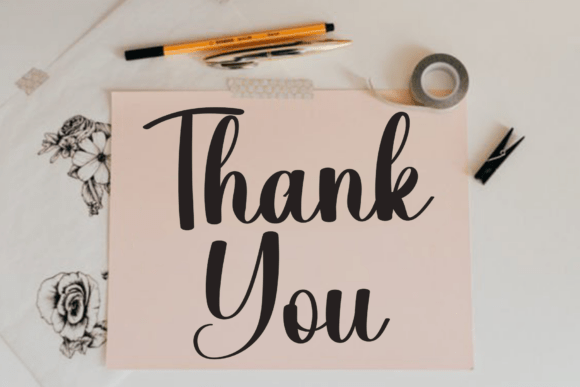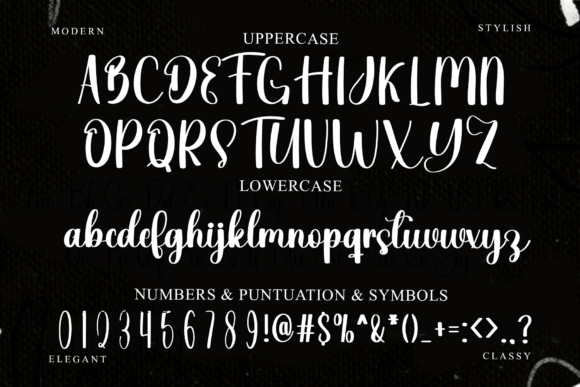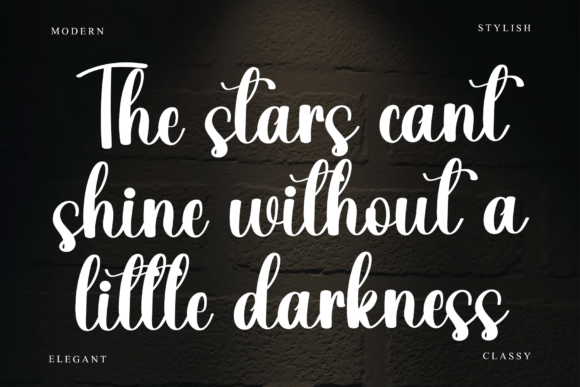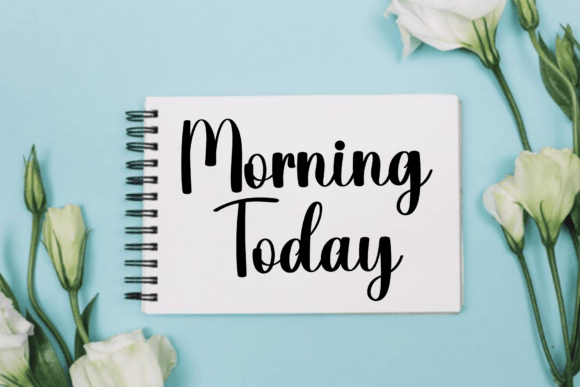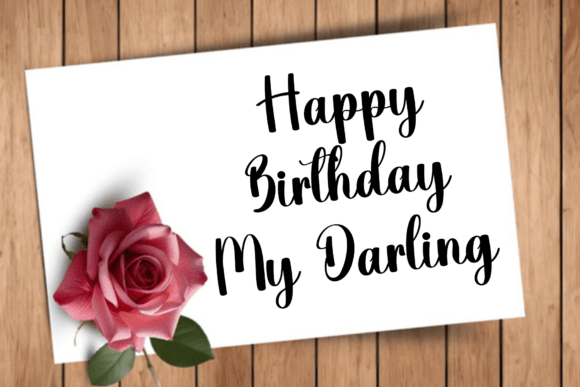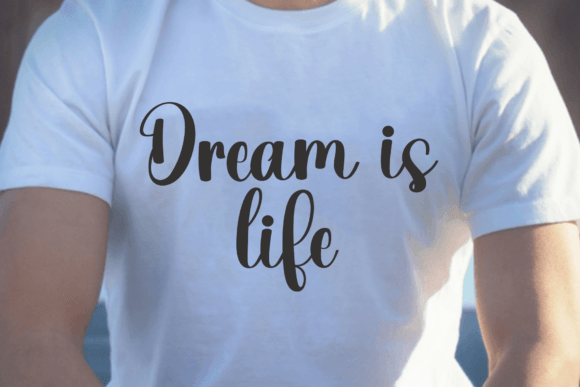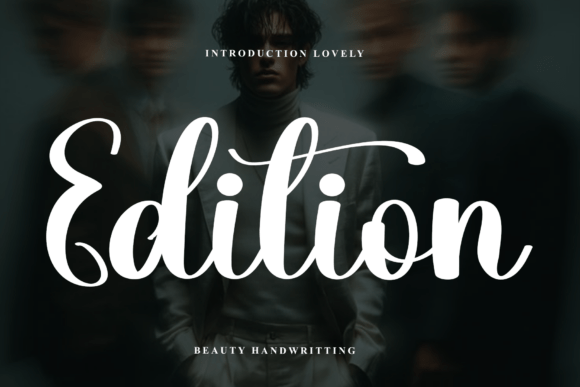
Introducing Edition Font: The Ultimate Holiday Typeface
The holiday season is upon us, and what better way to get into the spirit than with a festive and merry typeface? Look no further than Edition Font, a decorative and whimsical font that’s perfect for adding a touch of enchantment to your designs. Whether you’re creating greeting cards, gift tags, or holiday-themed projects, Edition Font is the perfect choice to bring a cheerful and nostalgic ambiance to your words.
The Magic of Edition Font
Edition Font is a carefully crafted typeface that’s designed to capture the essence of the holiday season. Its decorative elements and whimsical flair make it the perfect choice for designers and crafters looking to add a touch of magic to their projects. With its unique and eye-catching design, Edition Font is sure to make your typography shine.
Edition Font is specifically designed with holiday projects in mind. Whether you’re creating:
- Greeting cards for friends and family
- Gift tags for presents
- Holiday-themed social media graphics
- Winter wonderland-inspired artwork
Edition Font is the perfect choice to add a festive touch to your designs. Its cheerful and nostalgic ambiance is sure to evoke the spirit of the holiday season and leave a lasting impression on your audience.
One of the best things about Edition Font is that it’s PUA (Private Use Area) encoded. This means that you can access all of the amazing glyphs and ligatures with ease, giving you even more creative freedom to experiment with your designs. With PUA encoding, you can:
- Easily access alternative characters and glyphs
- Create unique and custom typography
- Add an extra layer of creativity to your designs
Why Choose Edition Font?
So why choose Edition Font for your holiday projects? Here are just a few reasons:
- Unique and eye-catching design: Edition Font is a one-of-a-kind typeface that’s sure to make your designs stand out.
- Festive and merry spirit: Edition Font captures the essence of the holiday season, making it perfect for holiday-themed projects.
- Easy to use: With PUA encoding, you can easily access all of the amazing glyphs and ligatures.
- Perfect for designers and crafters: Edition Font is a versatile typeface that’s perfect for both professional designers and crafty hobbyists.
Get Ready to Make Your Typography Shine
In conclusion, Edition Font is the ultimate holiday typeface for designers and crafters. With its decorative elements, whimsical flair, and PUA encoding, it’s the perfect choice for adding a festive touch to your holiday projects. Whether you’re creating greeting cards, gift tags, or holiday-themed artwork, Edition Font is sure to bring a cheerful and nostalgic ambiance to your words. So why wait? Download Edition Font today and make your typography shine!